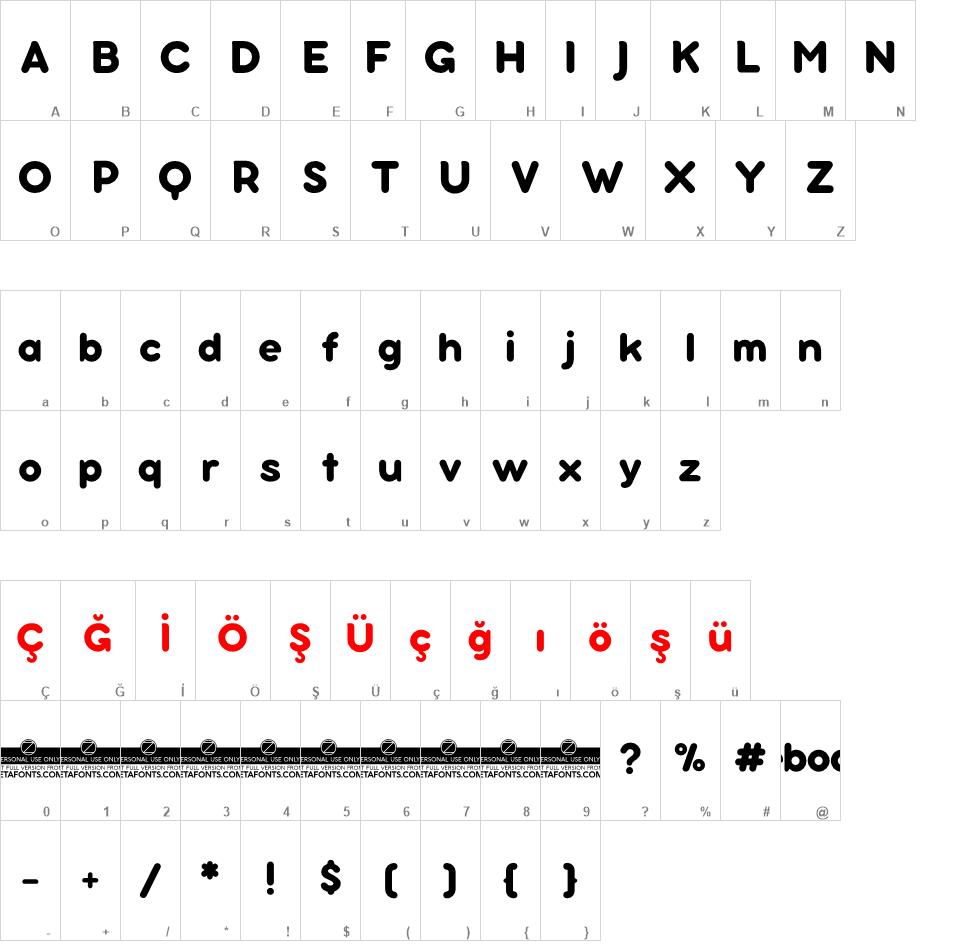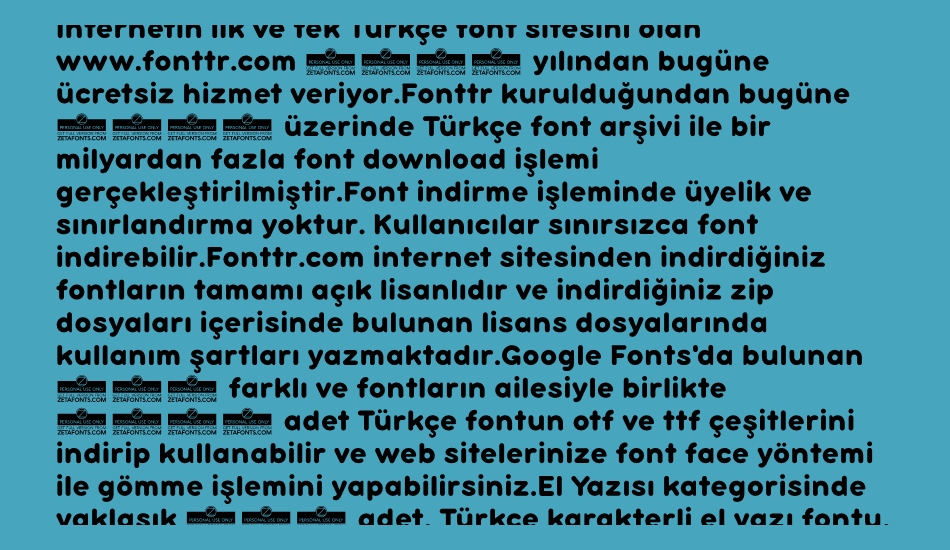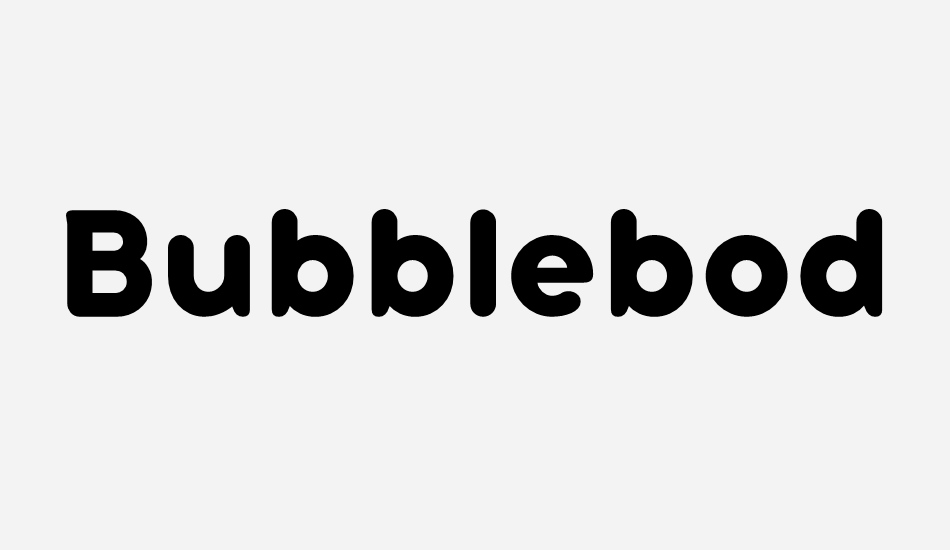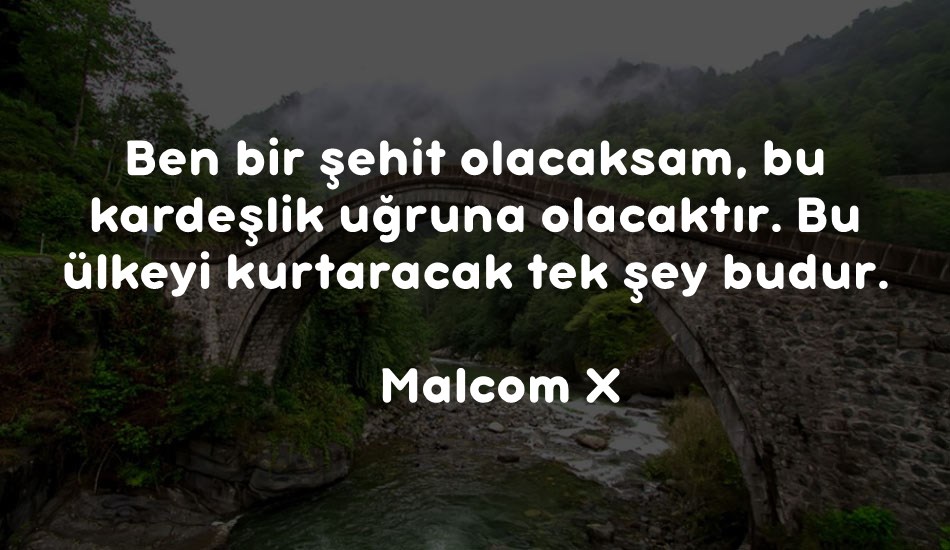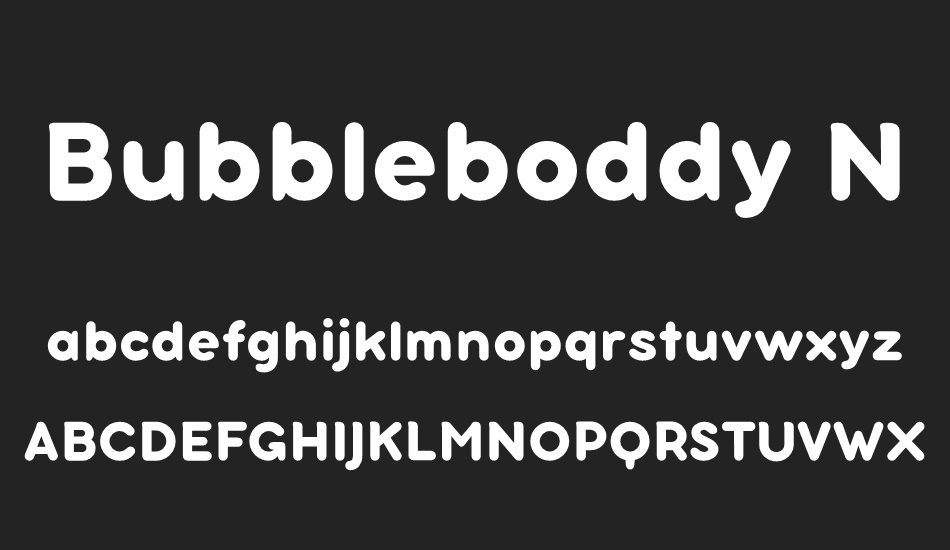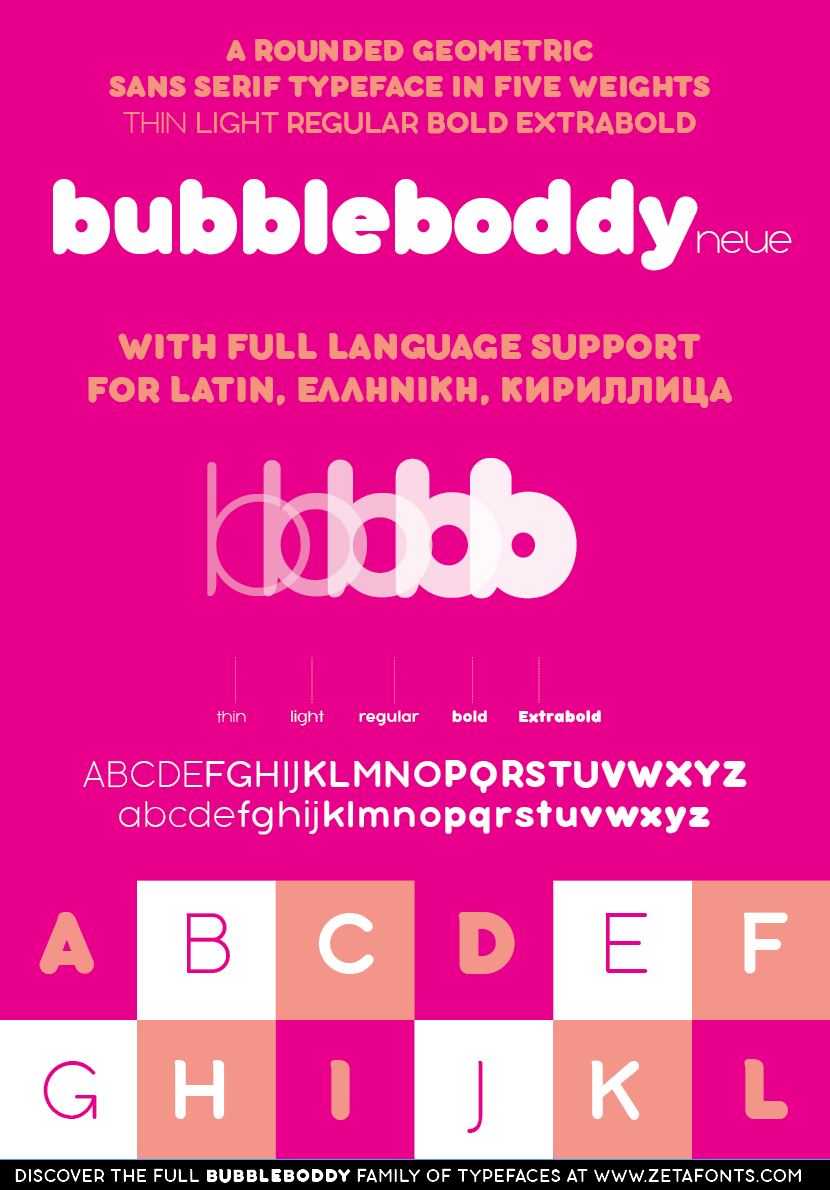
Bubbleboddy Neue font
Bubbleboddy Neue is the redesign of one of the first Zetafonts typefaces. It preserves the original round and chunky flavor and adds three new weights and a complete cyrllic and greek character set to infuse your design with an original 80s touch and all the juicy sweetness of a bubblegum. Born for logos and display use, the family has now got a complete facelift with better readability onscreen for web use and offline for text setting.